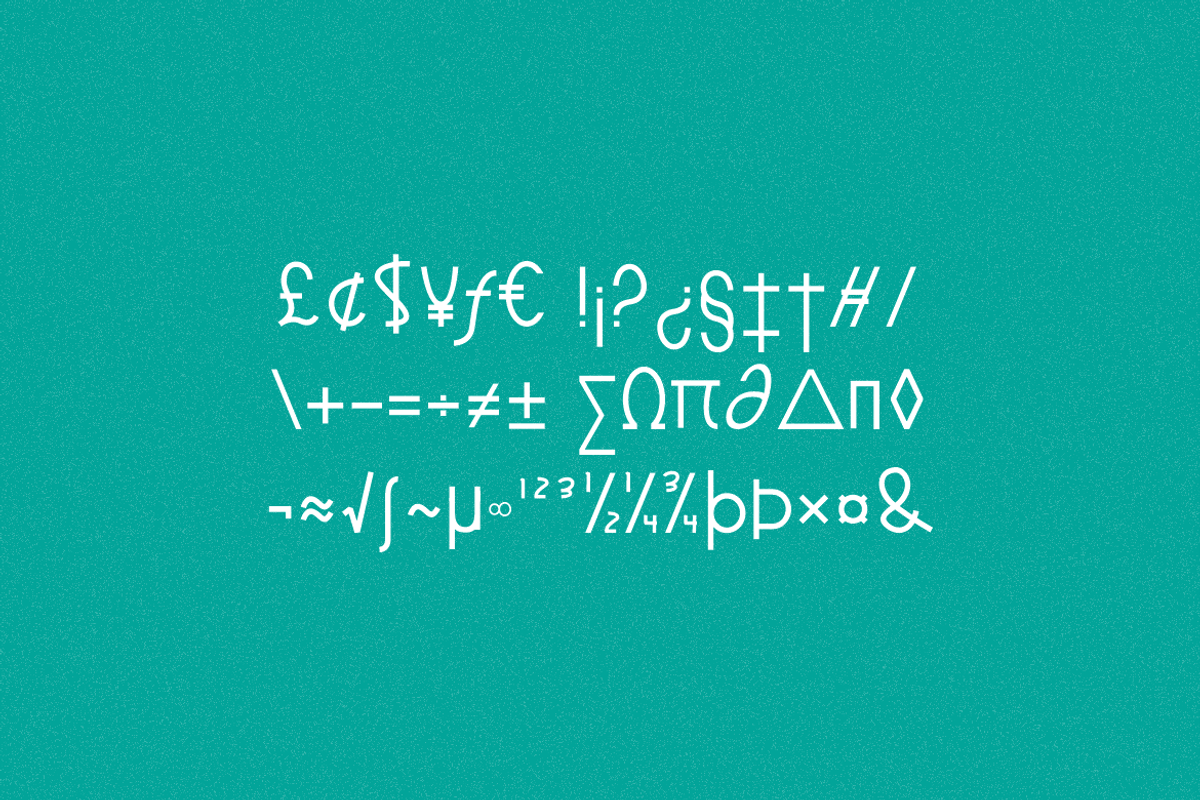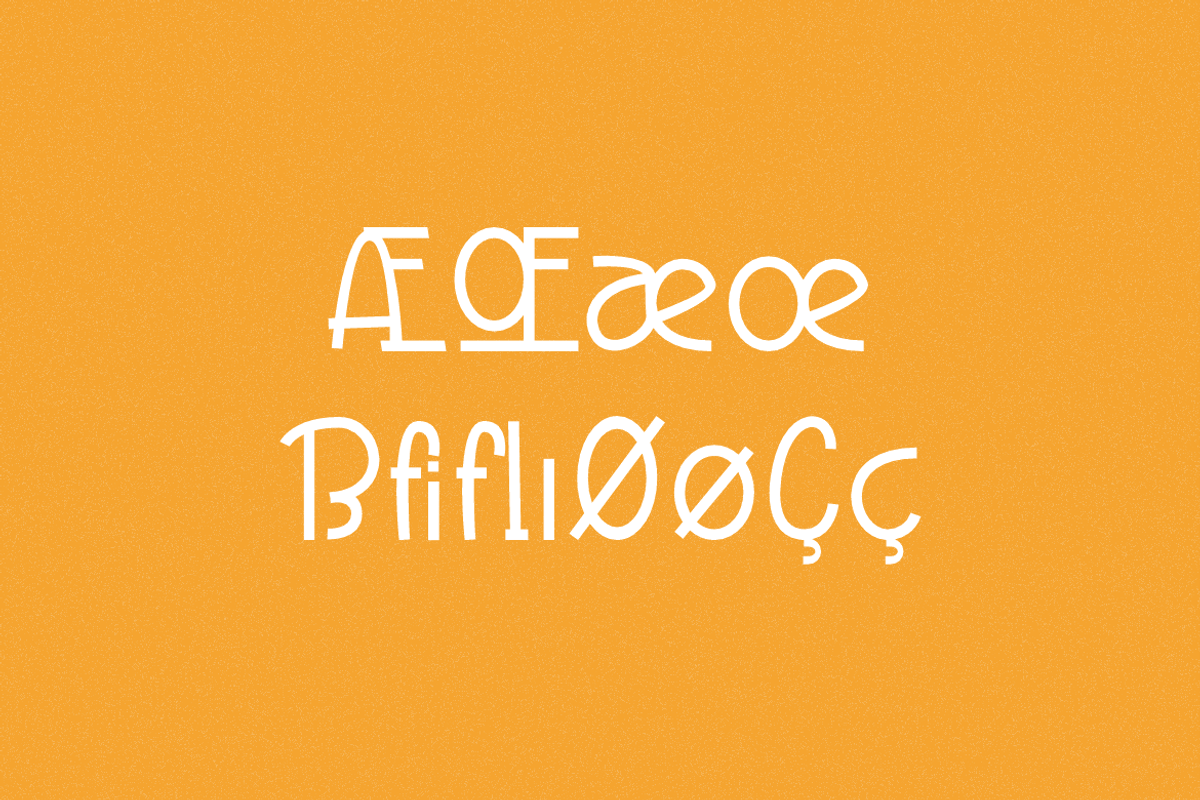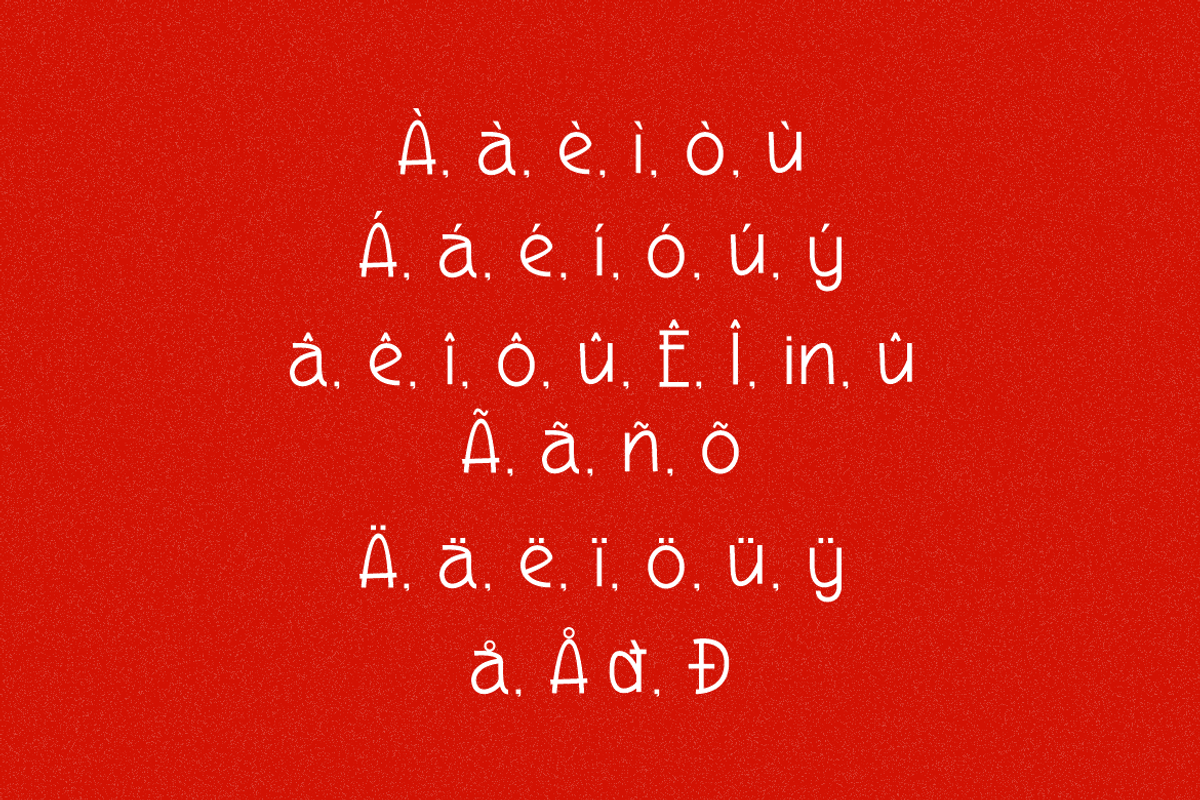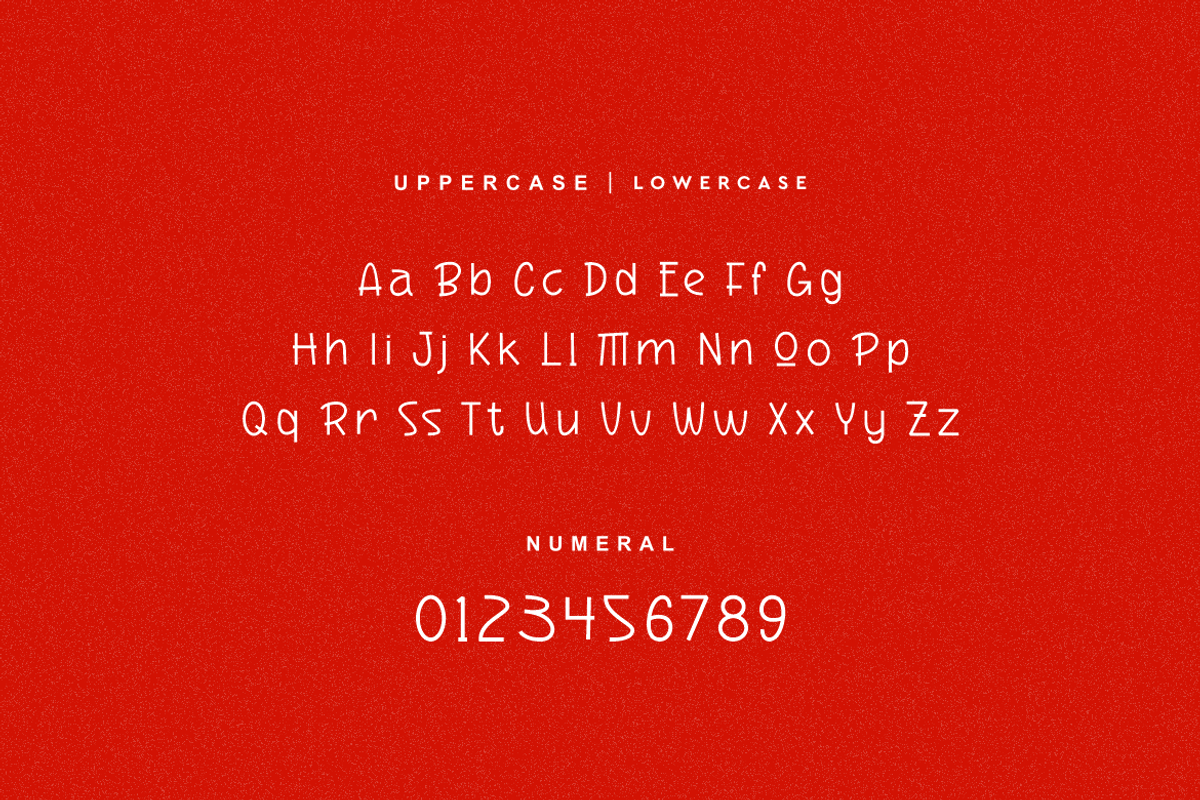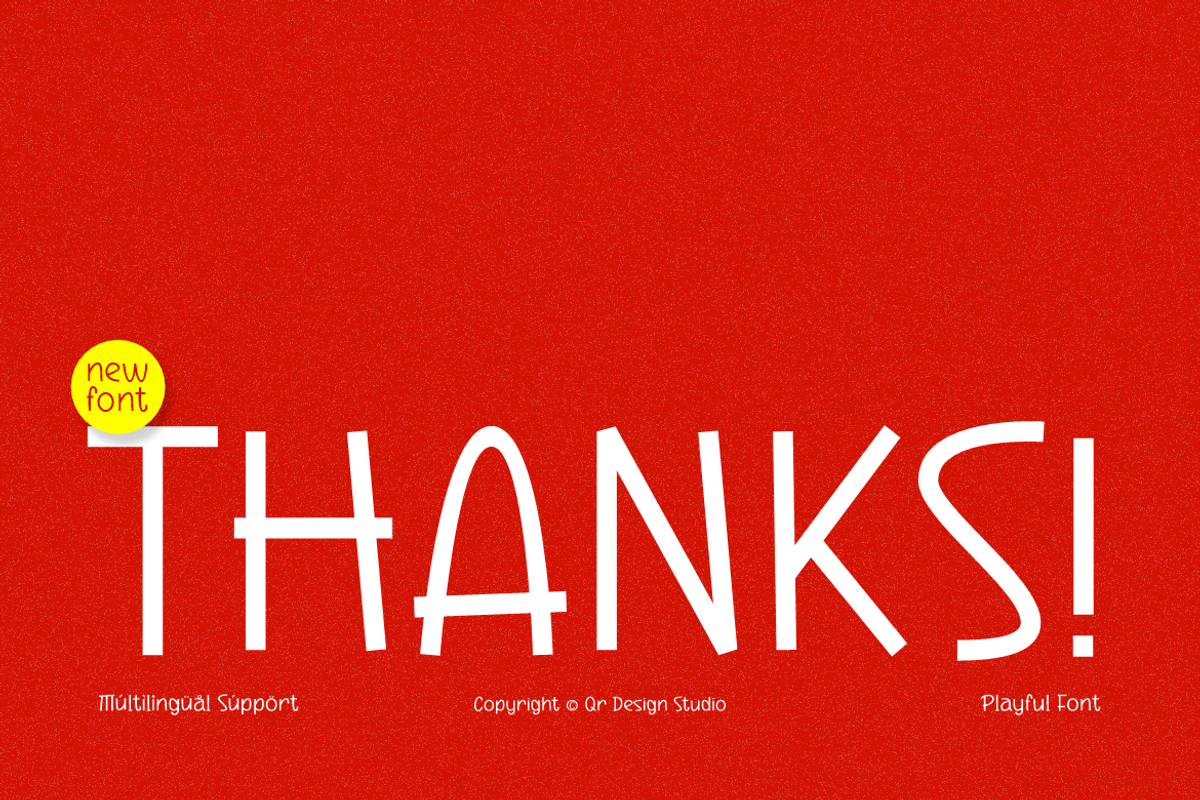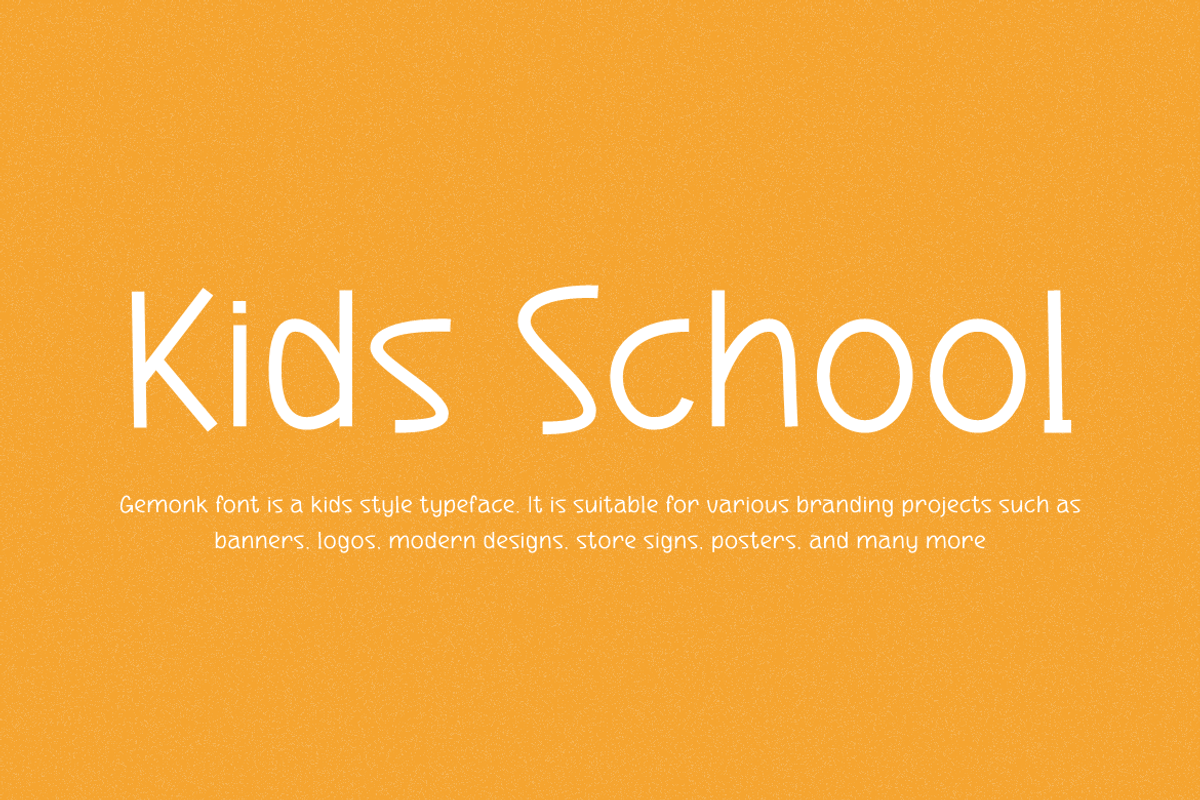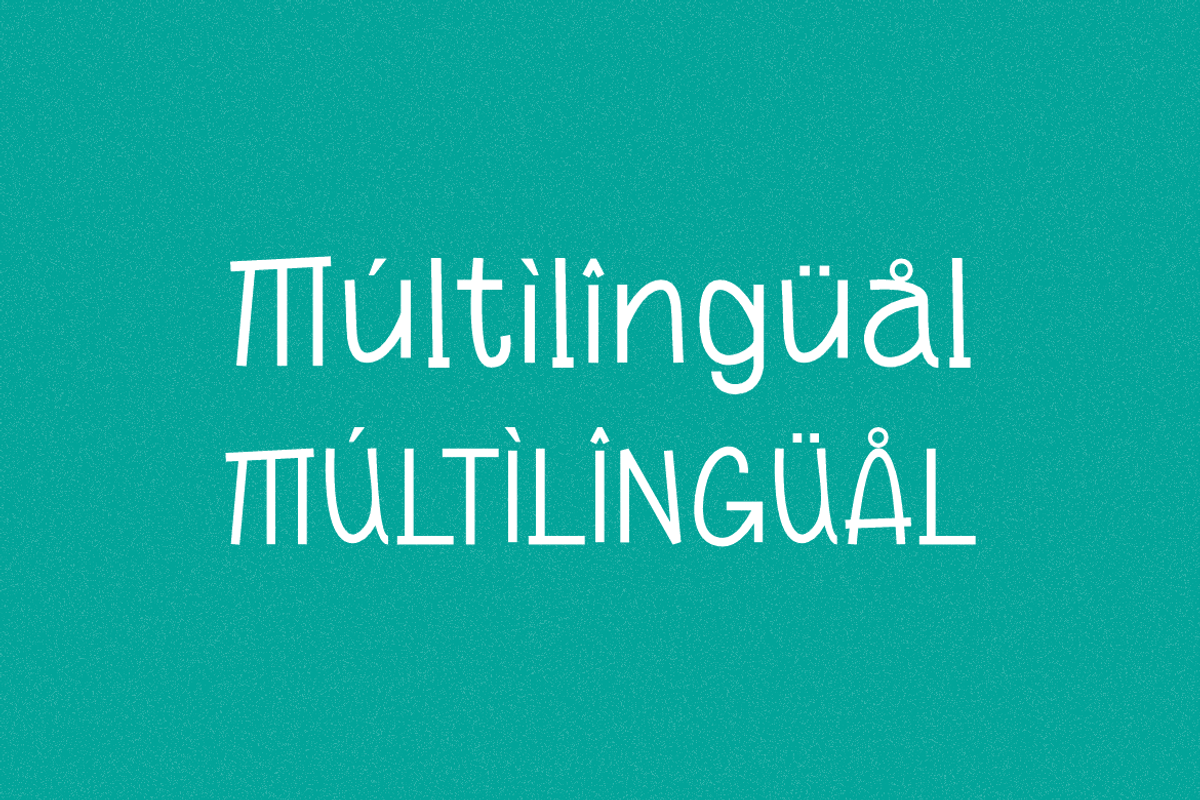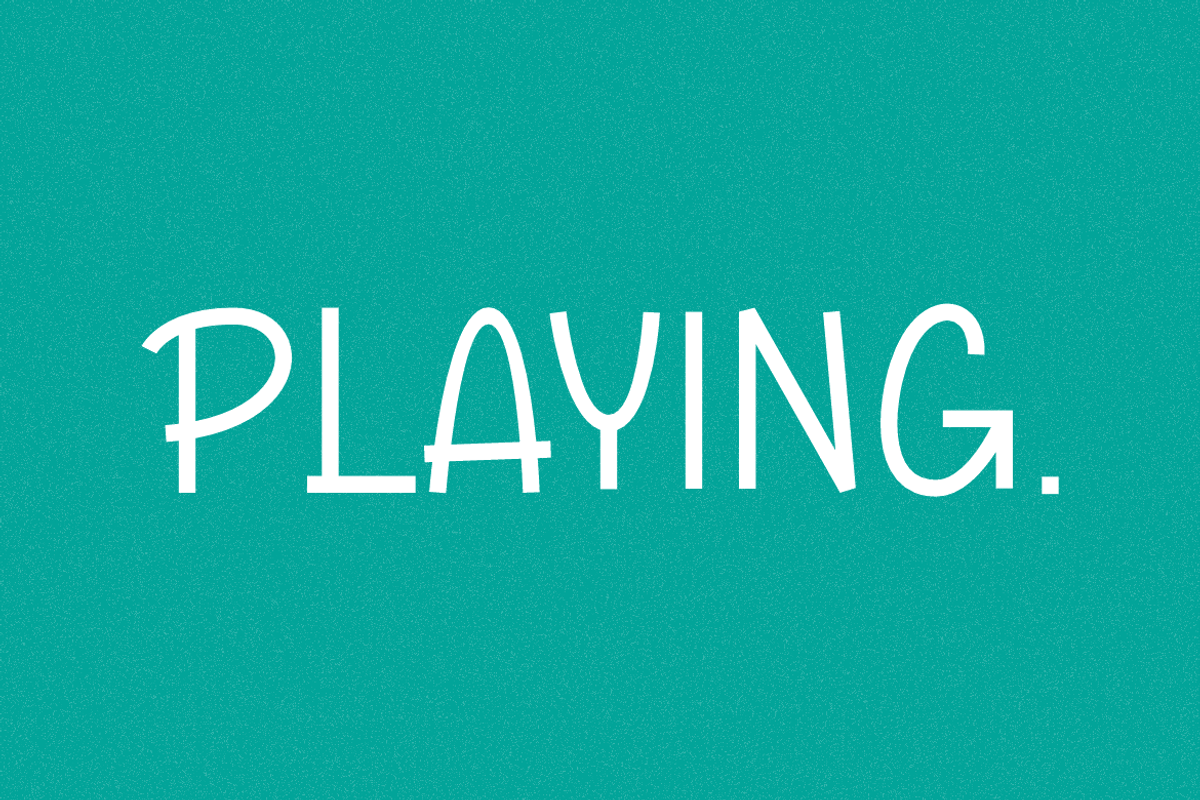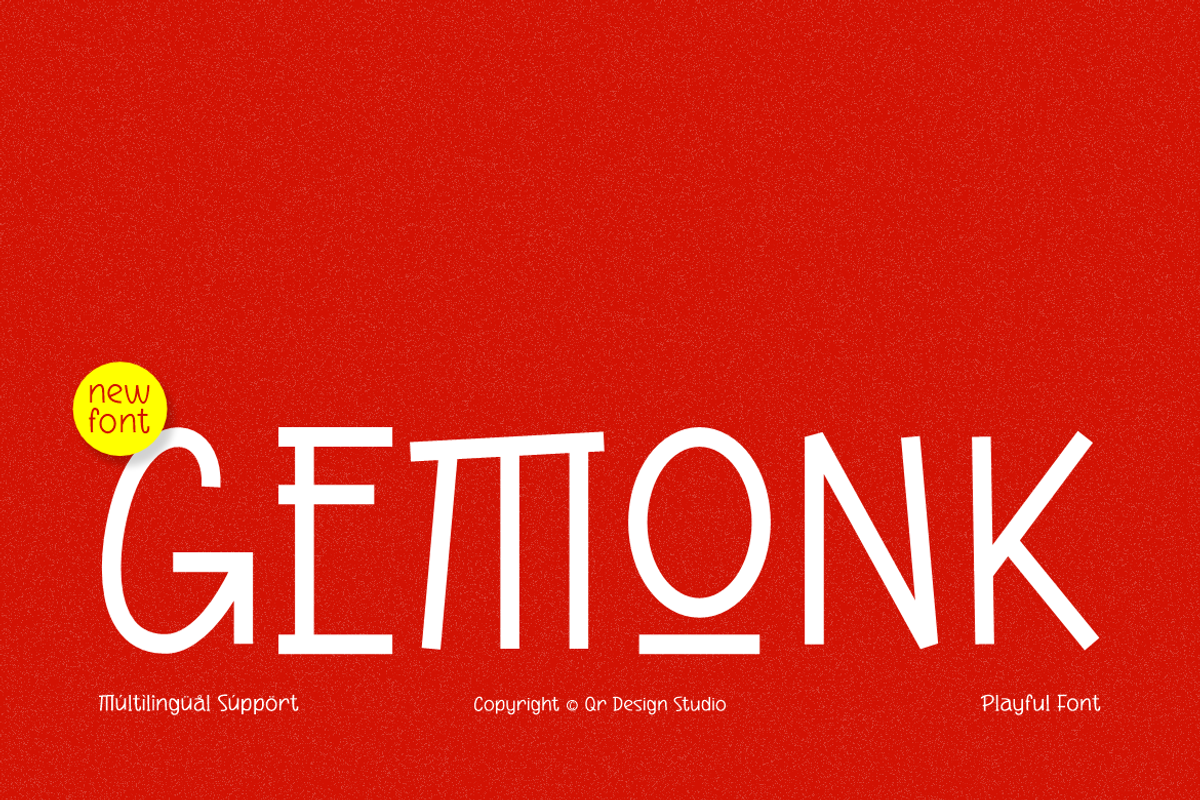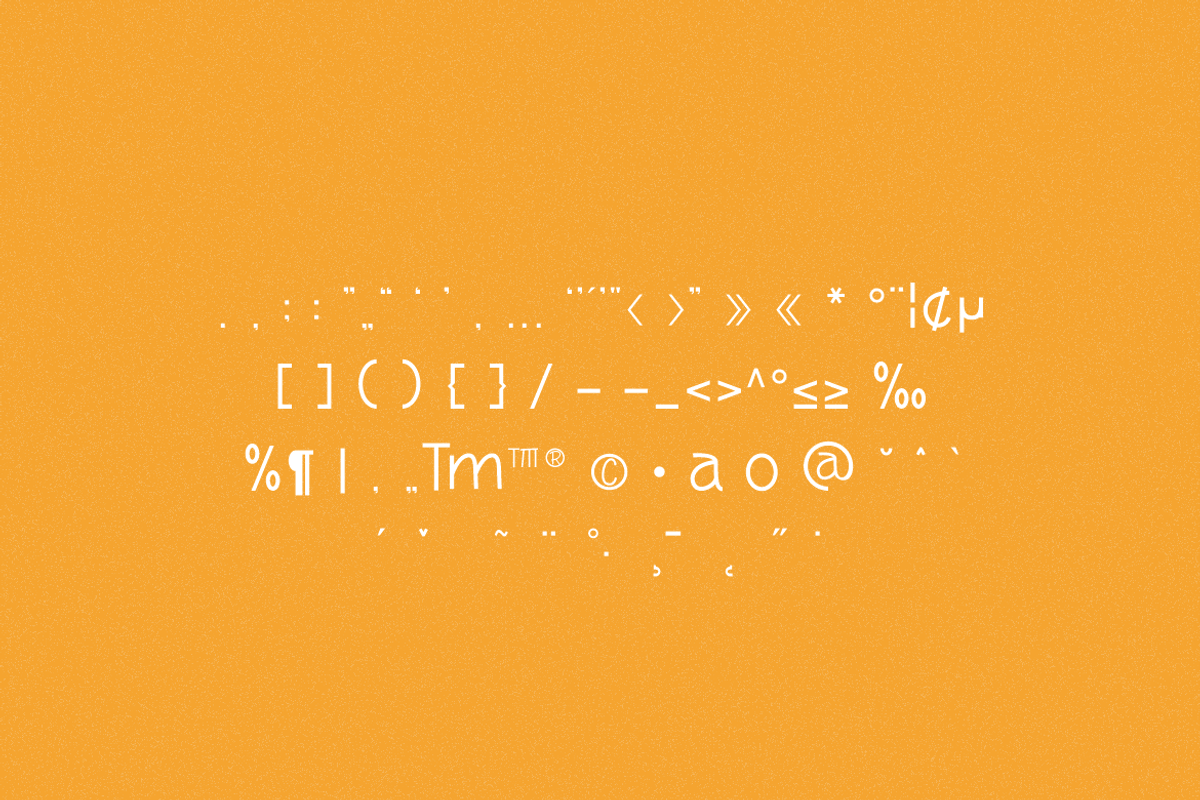
Gemonk - Kids Font
Gemonk Font is a modedrn and authentic display typeface.
It’s perfect for various branding projects such as logos, modern designs,
and more. This font stands out beautifully in a wide range of contexts.